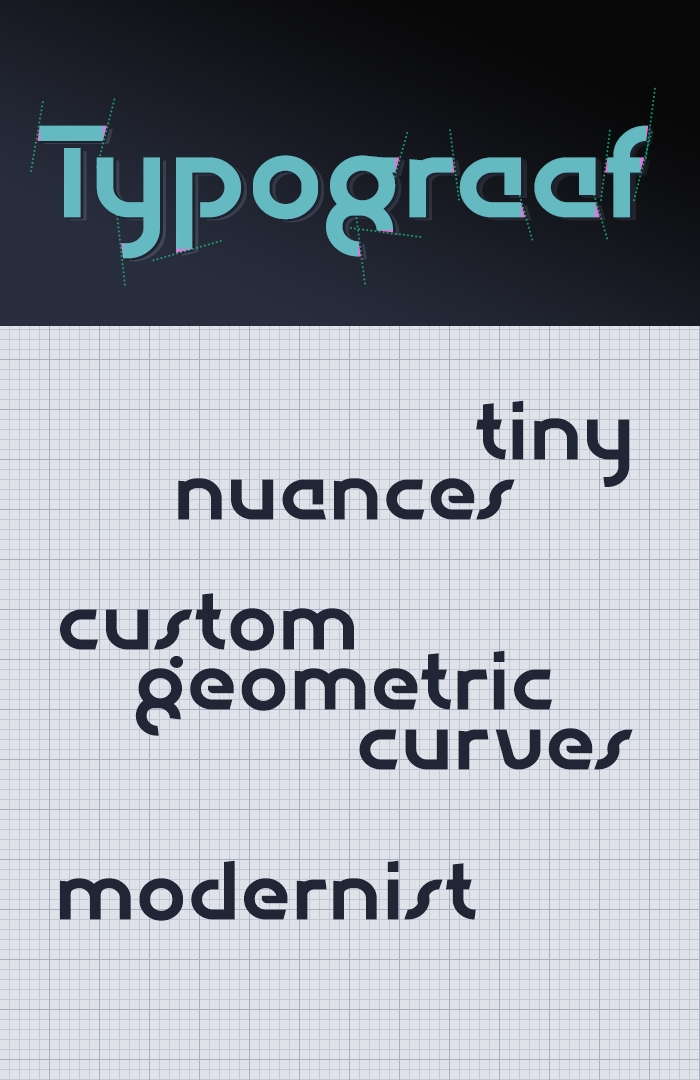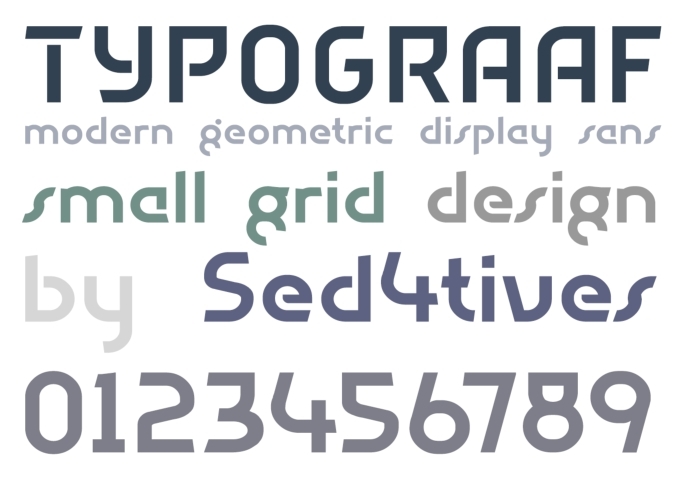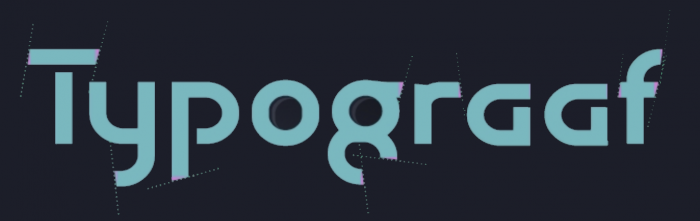
TYPOGRAAF — Geometric modernist display typeface
Typograaf is simple looking modernist style aimed for display use. It doesn't work well in a long line if text nor at smaller sizes. But perfect for large display work, logo's and such. The letterforms have several little nuances and multiple custom crafted curved parts with smooth (near) real Bézier contour quality.
So far only general concept plus some extra's was created, no multilingual suport for now.
Pretty font that I like it, plain of luxury details (btw, your "g" I think will solves me a design problem)! My only BUT: your "a" seems to me too close an "e"... (I was thinking on the old Reebok's logo, I add a sample).
And what about this?...
@elmoyenique: Yeah I had the same problem with lowercase letter "a". Seem that your suggested version is a much more legible solution. Ill make the changes soon, thanks for the help.
Lots of fun angles, especially a fan of the "g"
@elmoyenique: Changed the default form for lowercase letter "a"
@ tortoiseshell: Thanks for the kind words, and well, I gotta admit, that lowercase letter "g" is kind of cute indeed.
The new "a" is more traditional but more legible, I like how it works. And congratulations on the pink distinction too!
this looks good
The g looks like a Doulingo "g"